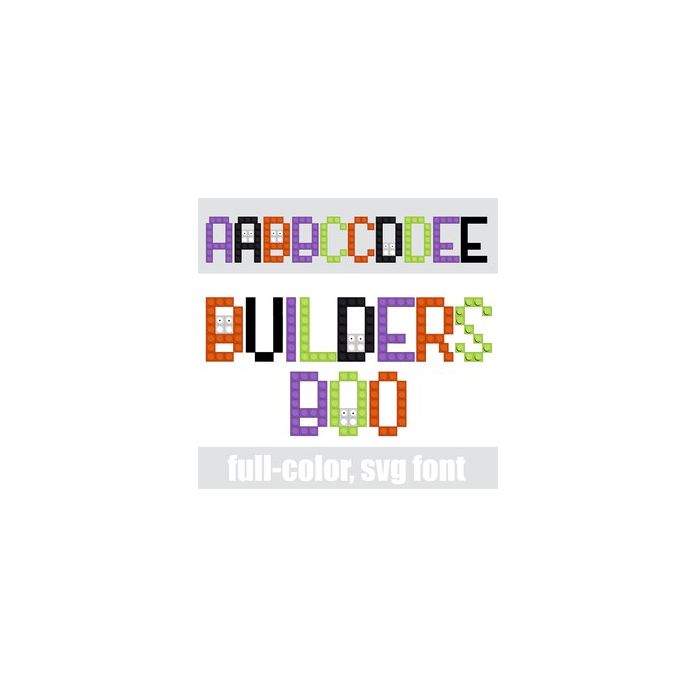
This full-color font features building blocks in a Halloween color palette with little ghosts peeking from some letters. There is an alt case w/ additional colors you can access through your system or Silhouette's glyph map.